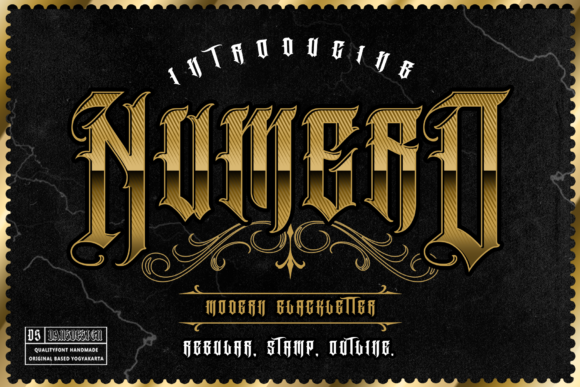
Journey into the realm of Numero, a font family that exudes an aura of strength and distinction. Its blackletter roots lend it a timeless charm, while its modern interpretation breathes new life into this classic style. Each meticulously crafted character showcases intricate details, sharp angles, and an underlying elegance that commands attention.
Numero's assertive presence demands attention, making it the perfect choice for creating striking headlines, captivating logos, or unforgettable branding. Its bold strokes cut through the noise, ensuring your message leaves a lasting impact.
Unleash your creativity and explore the limitless possibilities Numero offers. Its versatility extends from traditional print media to the digital realm, effortlessly enhancing websites, social media posts, and digital graphics. Let Numero be your visual storyteller, transforming ordinary words into captivating narratives that resonate with your audience.
Embrace the power of Numero and watch as it elevates your designs to new heights. Its timeless aesthetic transcends trends, ensuring your creations remain relevant and captivating for years to come. Join the ranks of discerning designers who recognize the transformative power of Numero and unlock a world of design possibilities.